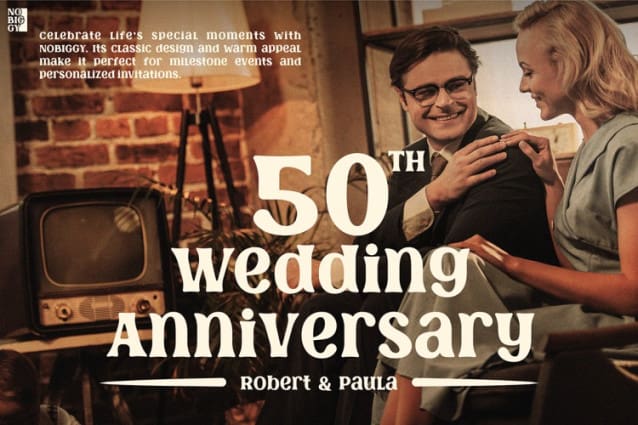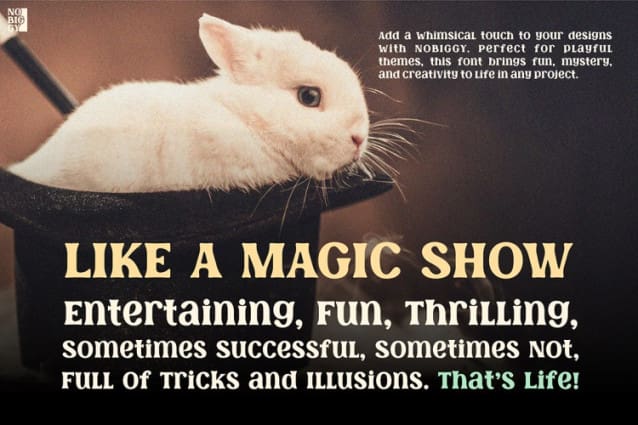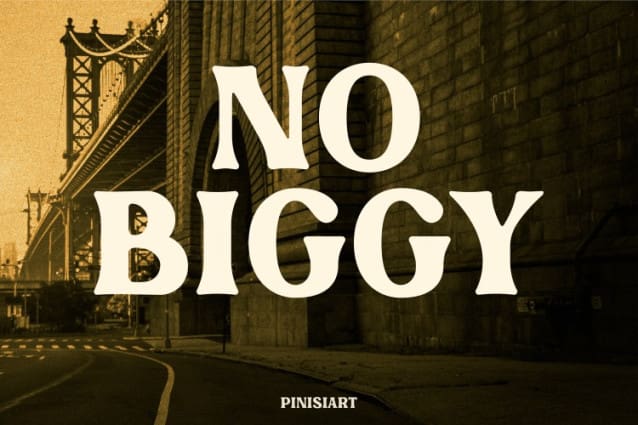
Nobiggy Display Font
Nobiggy Display Font is a stylish and bold typeface that captures the essence of retro aesthetics with a modern twist. Its thick, rounded strokes and playful yet elegant letterforms exude nostalgia, evoking the charm of vintage designs from the 60s and 70s. Whether used for headlines, logos, or posters, this font effortlessly grabs attention while adding a distinctive retro vibe to any project.
The stylistic details of Nobiggy Display make it unique. Each letter is carefully crafted with smooth curves and balanced proportions, ensuring visual harmony in any composition. Additionally, the font incorporates subtle decorative elements that enhance its retro appeal, making it versatile for a wide range of creative applications. Its timeless design allows it to blend seamlessly into both bold, colorful layouts and minimalist, monochromatic themes.
Moreover, Nobiggy Display is highly adaptable. It works well in vintage-themed branding, editorial layouts, packaging designs, and social media graphics. The font’s character exudes energy and confidence, making it an excellent choice for projects aiming to stand out. With its retro charm and stylistic flair, Retro Font NOBIGGY is a must-have for designers seeking to add a touch of nostalgia to their work.